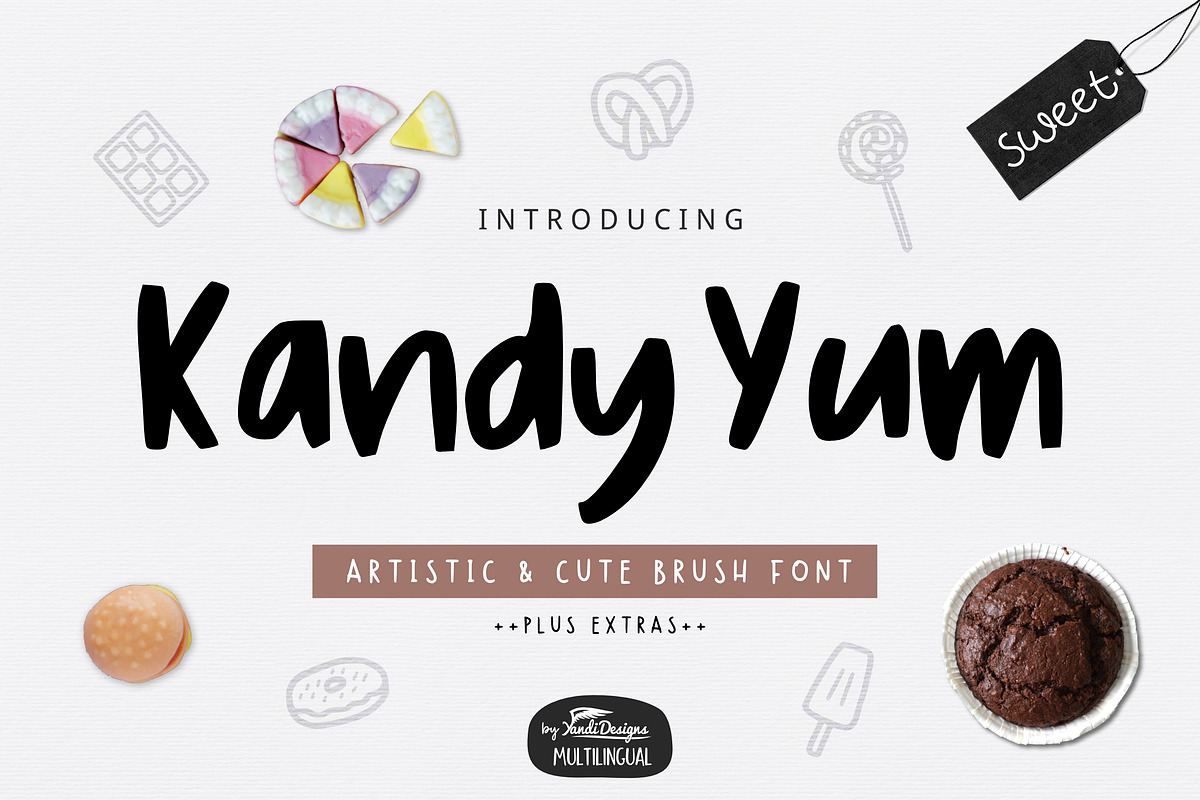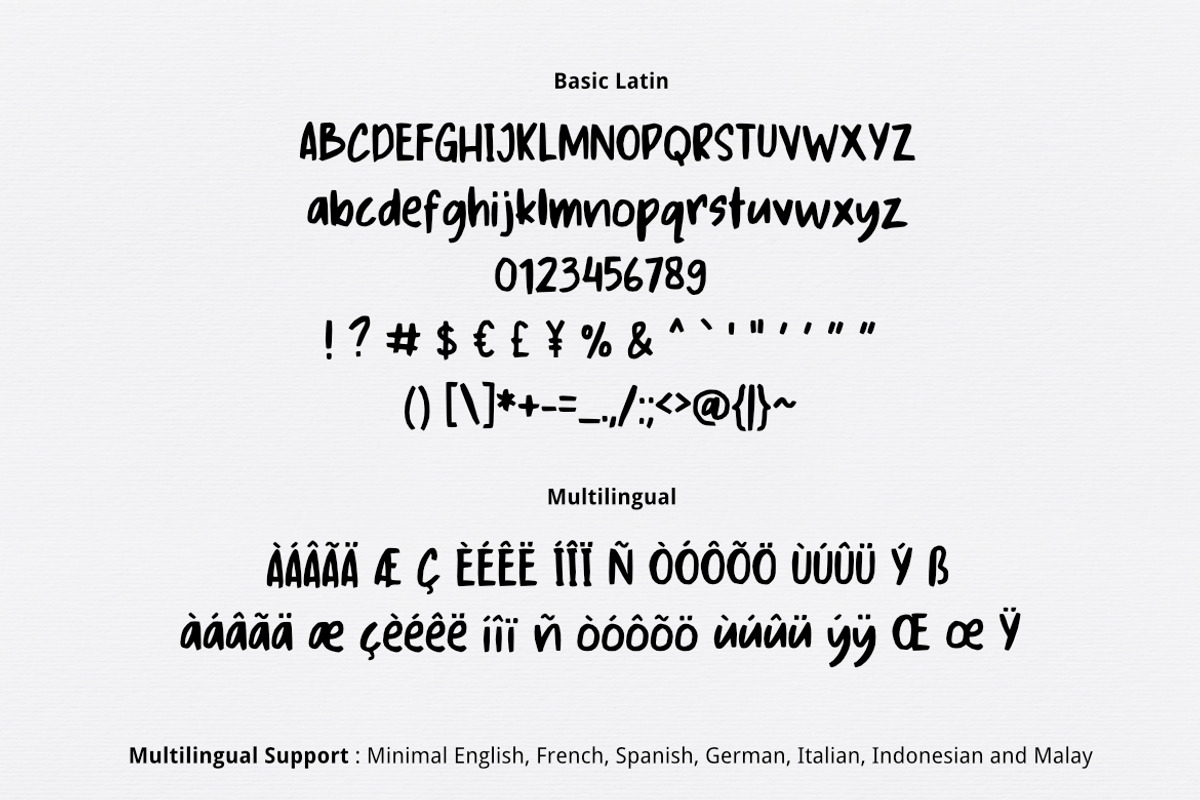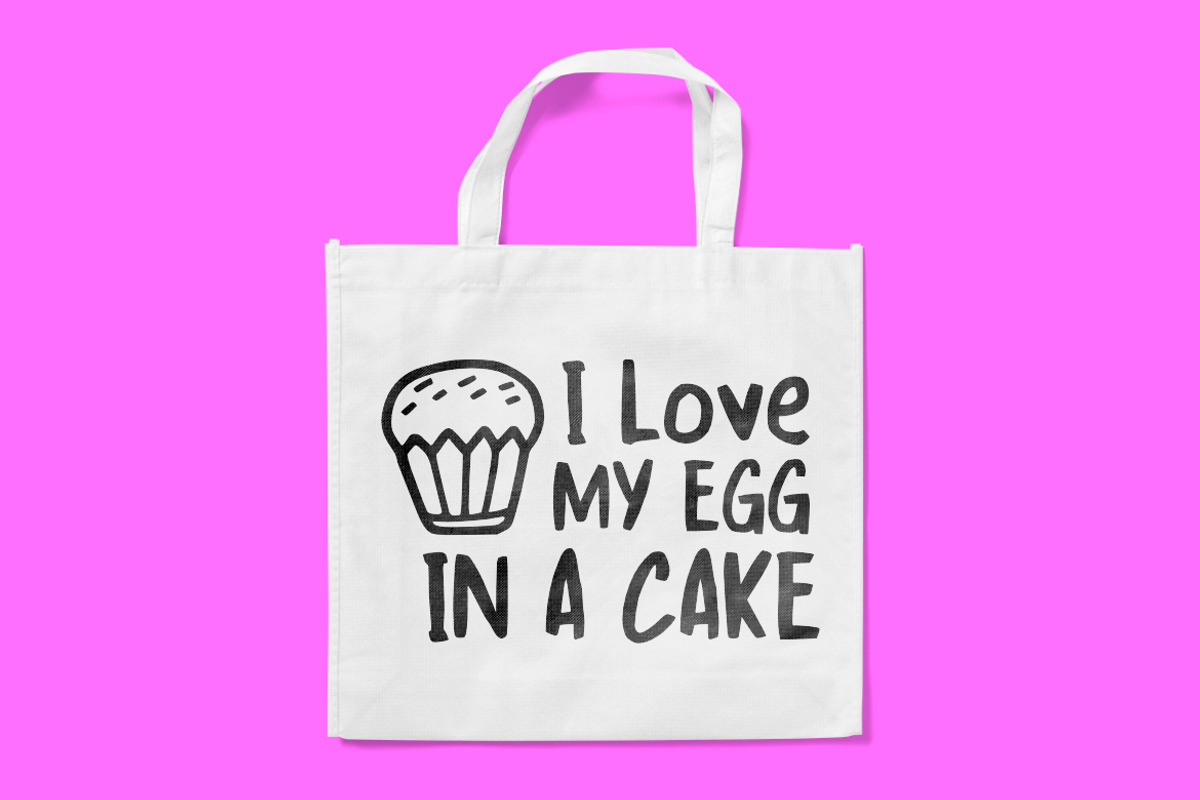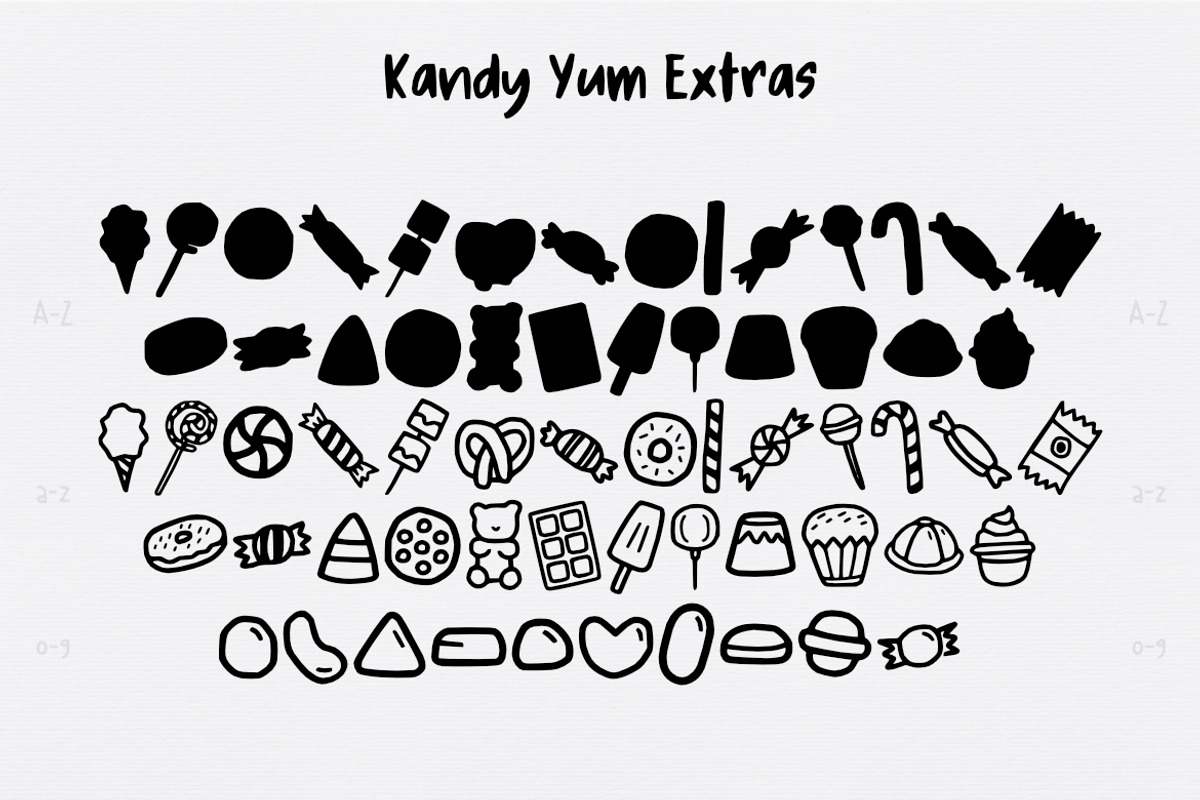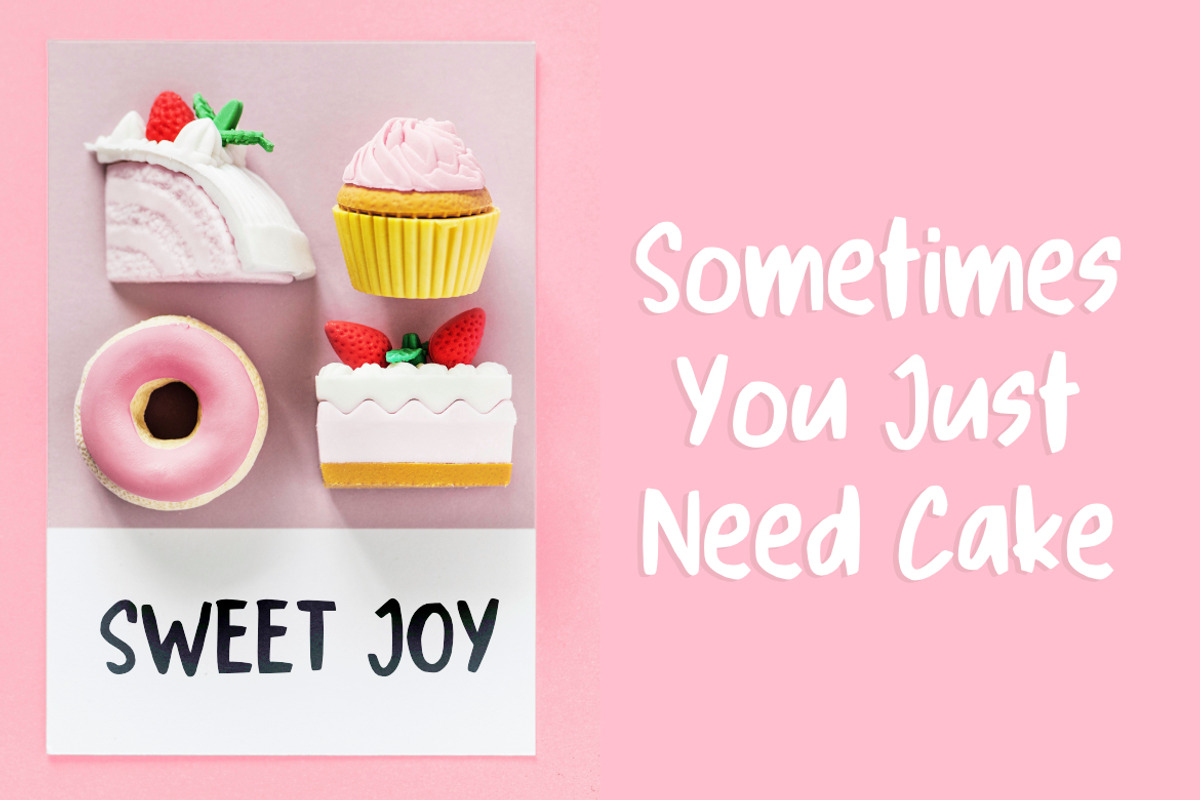
Kandy Yum Font
Kandy Yum Font with Illustration
Simple cute brush font , suitable for many project, signature , quotes, logo , doodle, heading , title etc.
Basic Latin + Multilingual
Support : Minimal English , French, Spanish, Germany, Italian, Indonesian and Malay.